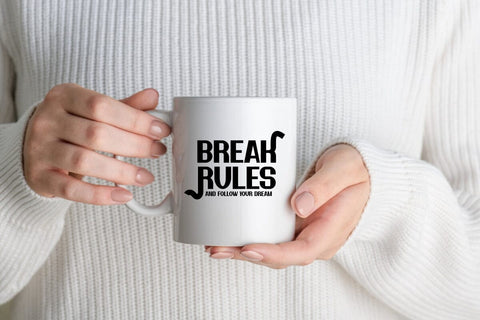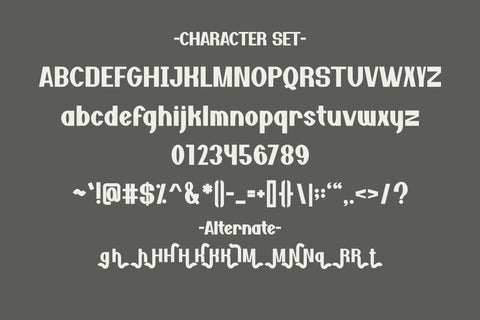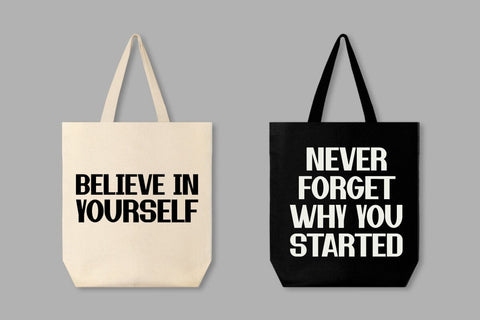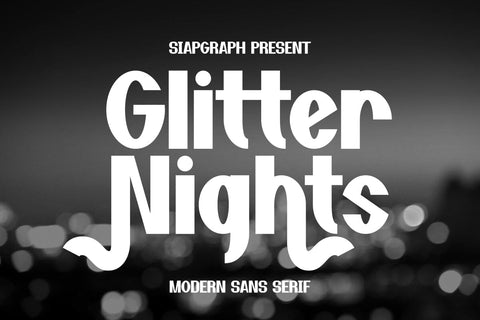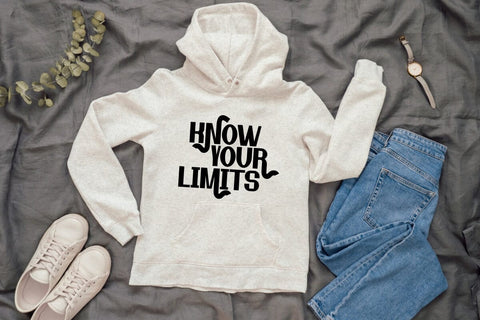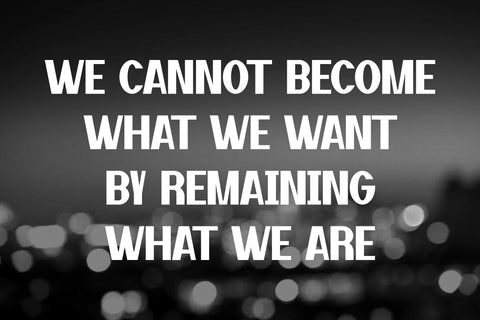
Glitter Nights - Modern Serif Font
Glitter Nights is a bold and elegant modern sans serif font that blends contemporary style with a festive Christmas touch. Its sleek design makes it perfect for creating eye-catching quotes, posters, apparel mockups, mugs, and tote bags. Glitter Nights also shines in social media designs, adding a stylish and sophisticated vibe to any holiday or modern-themed project.